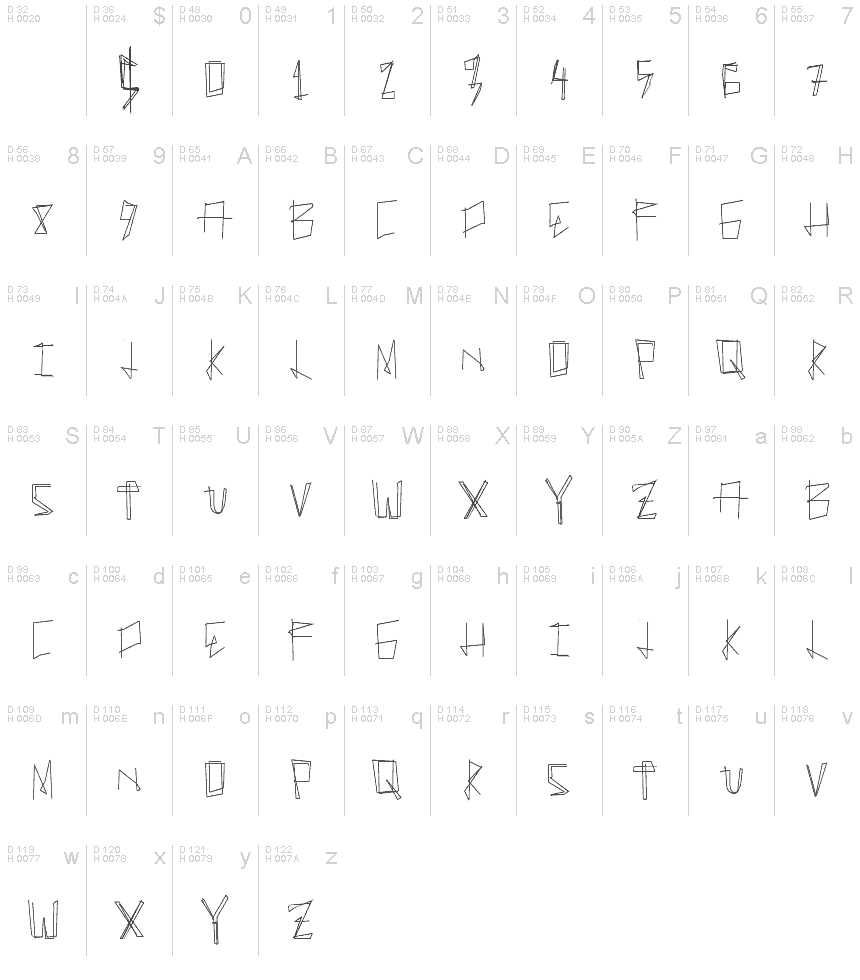
ManyLines
Flowing and expressive, "Many Lines" by Xerographer Fonts - Max Infeld, exudes a captivating handwritten allure. This light, dynamic font combines loose, organic strokes with a sense of movement, creating a visually engaging and authentic aesthetic. The natural variations in line weight and irregular letter forms lend a distinct personality, inviting the viewer to experience a personalized, handcrafted quality.
Versatile in its applications, "Many Lines" seamlessly adapts to a variety of design contexts. Its expressive characteristics make it an ideal choice for branding, packaging, and editorial projects seeking to convey a genuine, handmade feel. Furthermore, the font's adaptability extends to digital interfaces, where its lively presence can enliven user experiences and strengthen brand identities.